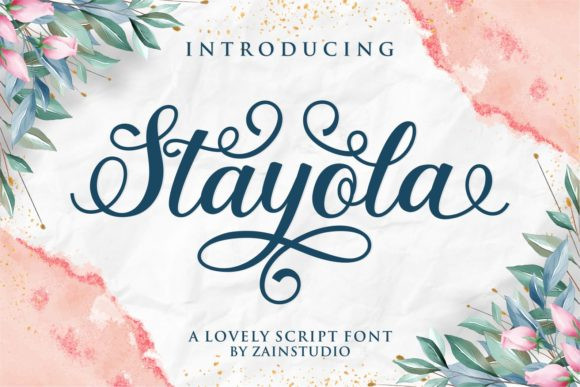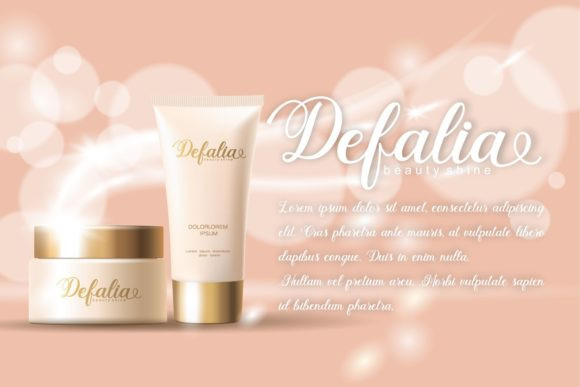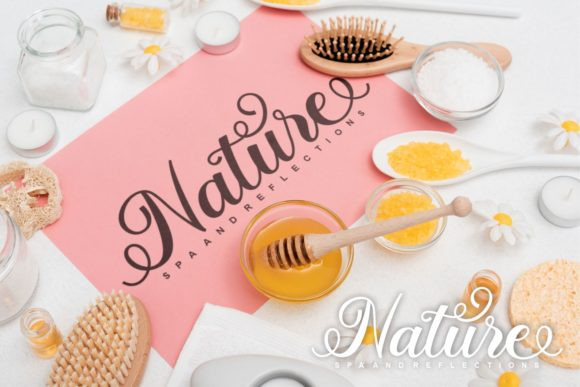
Stayola Font
Stayola is a sweet, soft hand-lettered handwritten font. The playful rounded characters make it the perfect font for creating stunning art. This font is PUA encoded which means you can access all of the beautiful glyphs and swashes with ease!